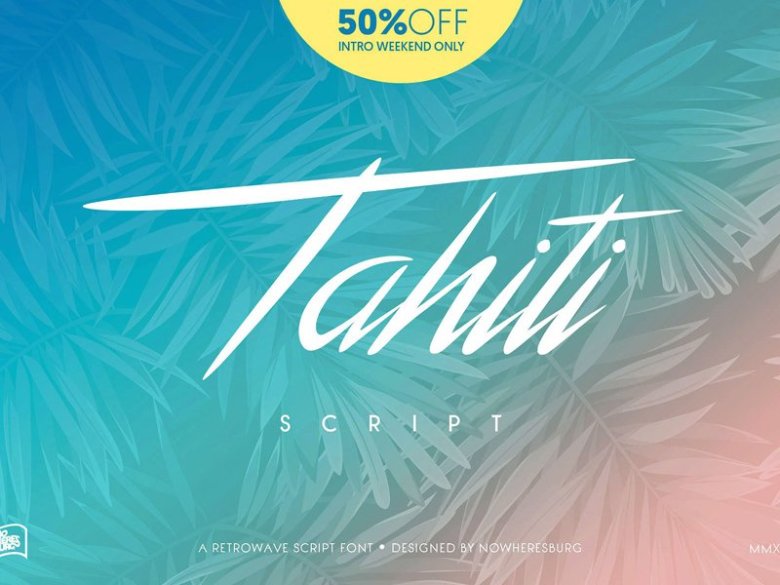
Tahiti Script Font
Introducing Tahiti. It is designed by Nowheresburg, this is a premium font, are sold on creativemarket, but it was great, it is free today for download. NWB Tahiti is an 80’s flavoured script typeface equally suitable for both niche, retro-themed designs and modern branding where a breezy, stylish feel is desired.